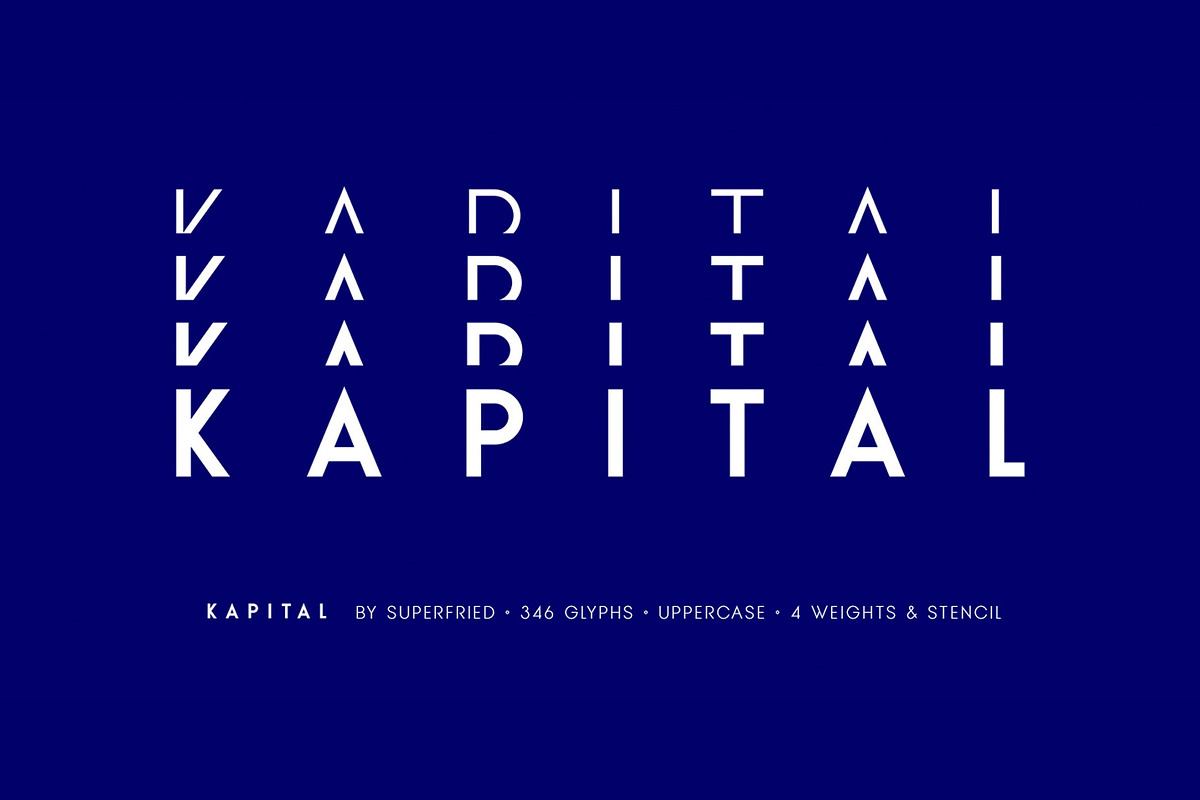
KAPITAL | 8 Fonts 4 Sans 4 Stencil Free Download
KAPITAL | 8 Fonts 4 Sans 4 Stencil Free Download is a versatile and bold font bundle offering a total of 8 distinct typefaces, featuring 4 sans-serif and 4 stencil fonts. This diverse collection is perfect for creating powerful logos, posters, branding, and promotional materials. Whether you're designing for a modern tech brand, military-style projects, or creative campaigns, KAPITAL | 8 Fonts 4 Sans 4 Stencil Free Download gives you the flexibility to experiment with different styles before purchasing a commercial license. The combination of clean sans-serifs and rugged stencil fonts allows you to create striking, dynamic designs with ease. Add strength and versatility to your work with this well-crafted and impactful font bundle.